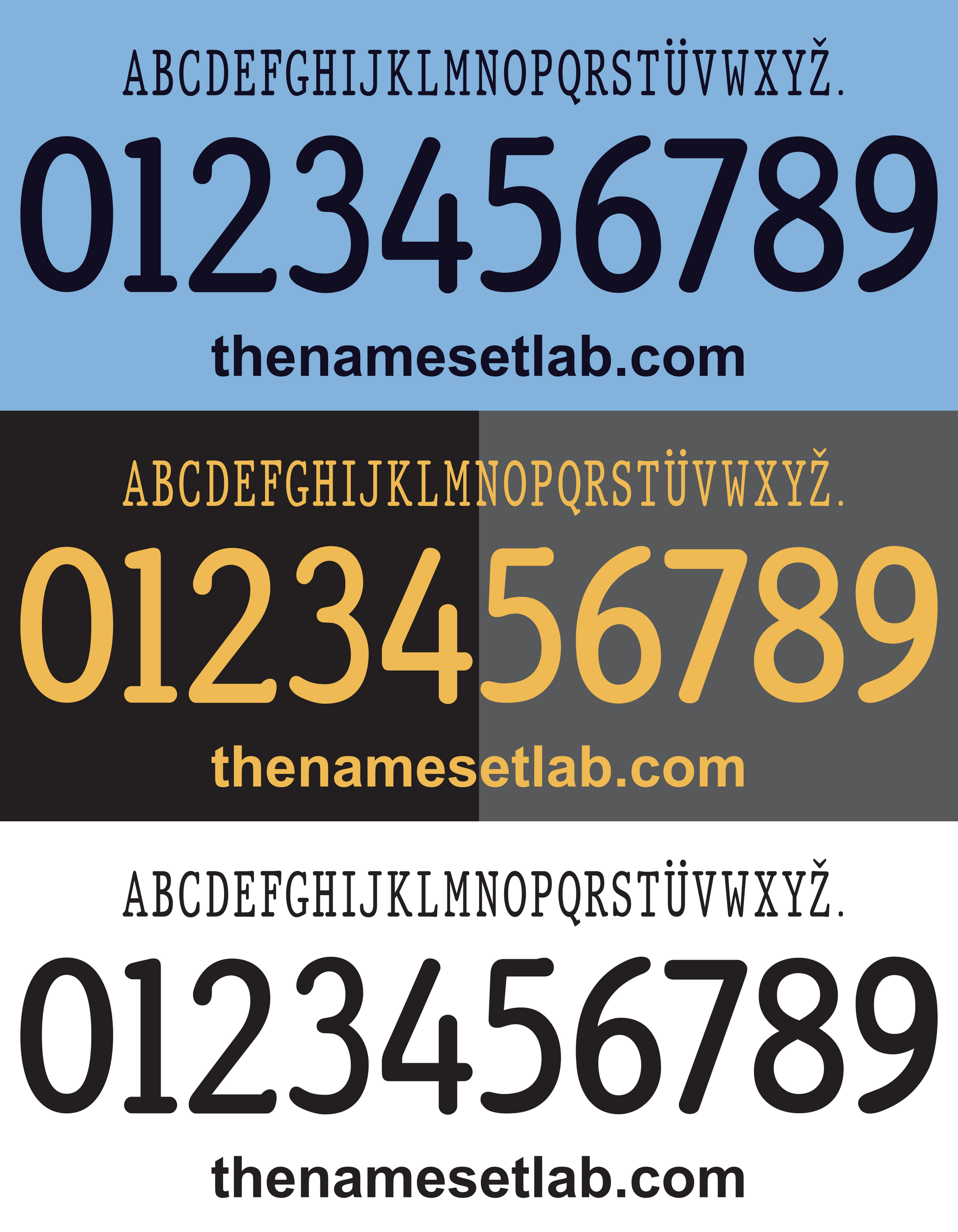
Manchester City 2013-2014 UCL / Cup Font Nameset AI Vector File
Download this Manchester City 2013-2014 UCL / Cup nameset as an editable .ai vector file. Styled in the 13/14 font, it’s perfect for recreating shirts from their double-winning season under Pellegrini, including Champions League nights and domestic cup glory. Ideal for kit projects or football memorabilia artwork.